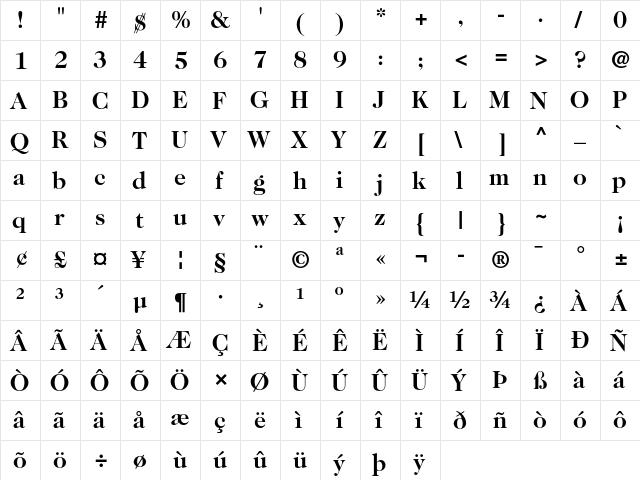
ITC Caslon 224 Std Bold Font Preview
ITC Caslon 224 Std Bold
ITC Caslon 224 Std Bold Font Details
| Designer | Ed Benguiat |
Design Context for ITC Caslon 224 Std Typeface
ITC Caslon 224 Std offers clean, dependable letterforms without strong stylistic allegiance, making it a practical choice for designers who need flexibility. Its bold stroke weight gives it real presence on the page.